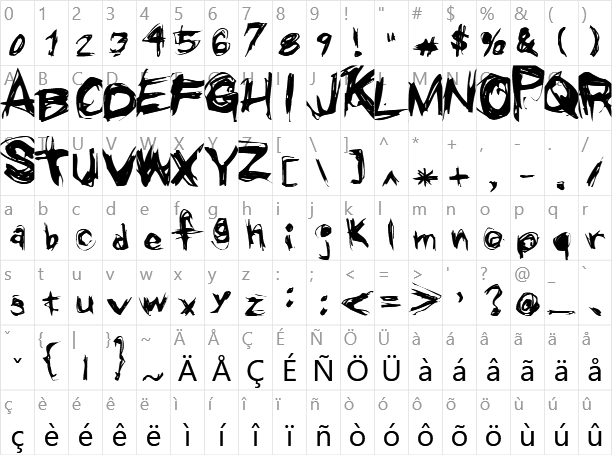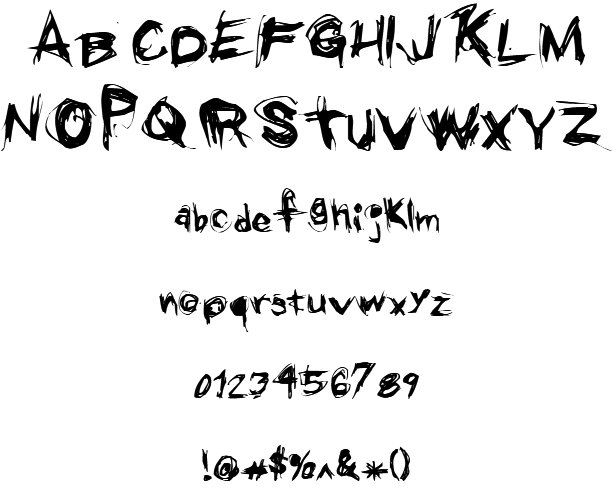
These grunge fonts have that dirty, filthy and worn out grungy look. How does the font generator work? Font categories most popular newest 3d aggressive all caps ancient arab asian black block blood bold brand brandname brush bubbly calligraphy cartoon christmas classic comic condensed cool curly cursive curvy cute dark decorative dingbats dingfonts distressed dot matrix dripping drug elegant famous fancy.